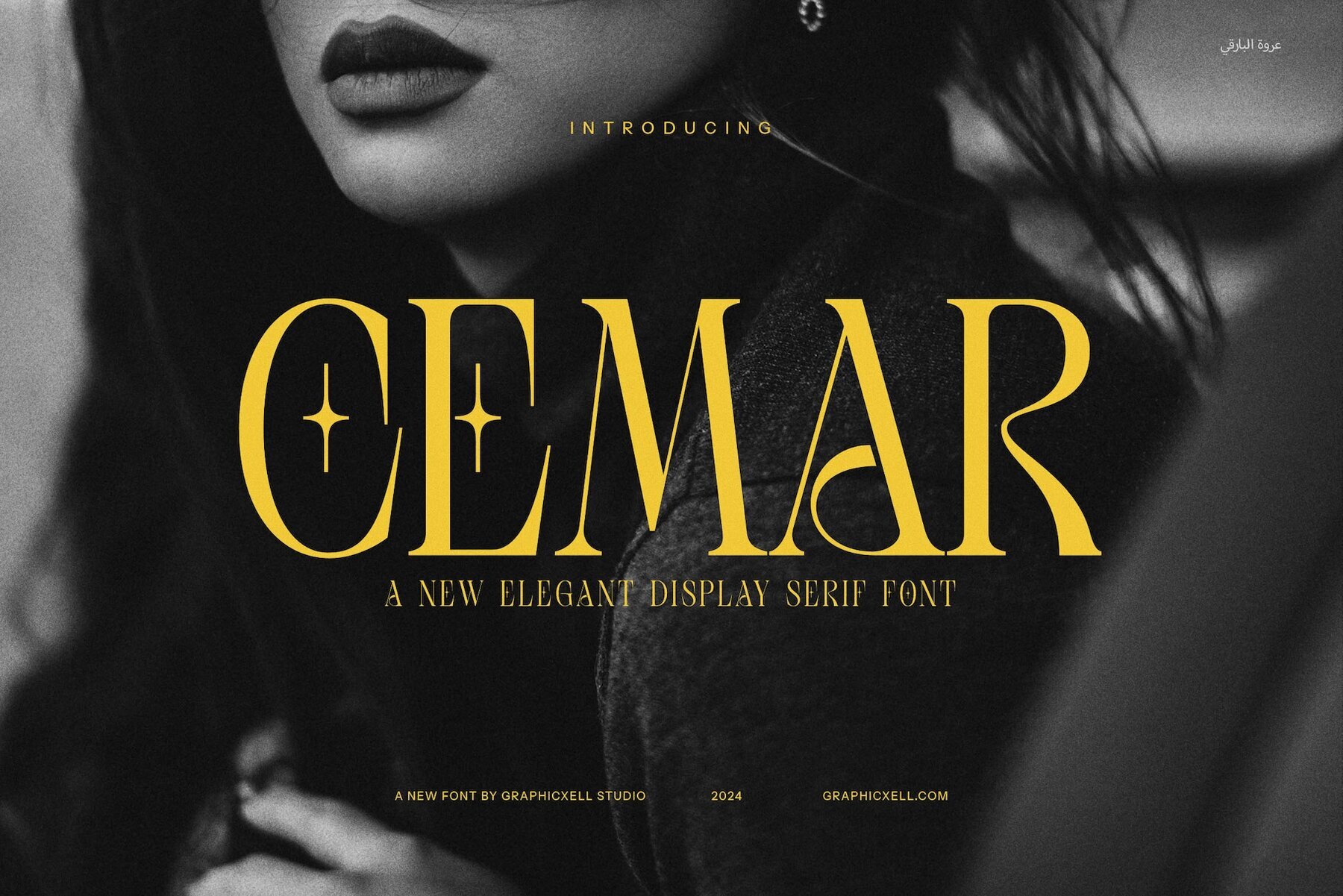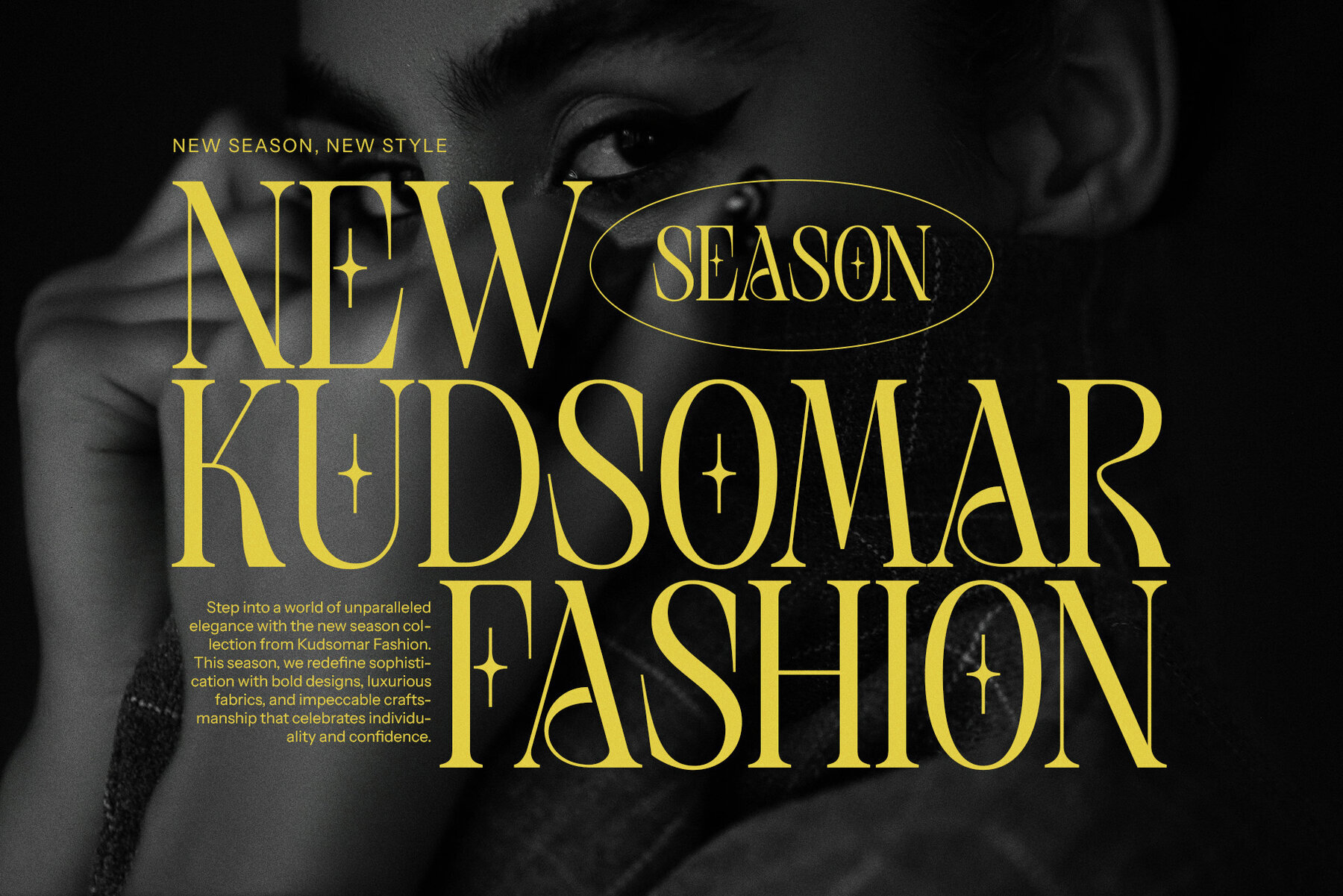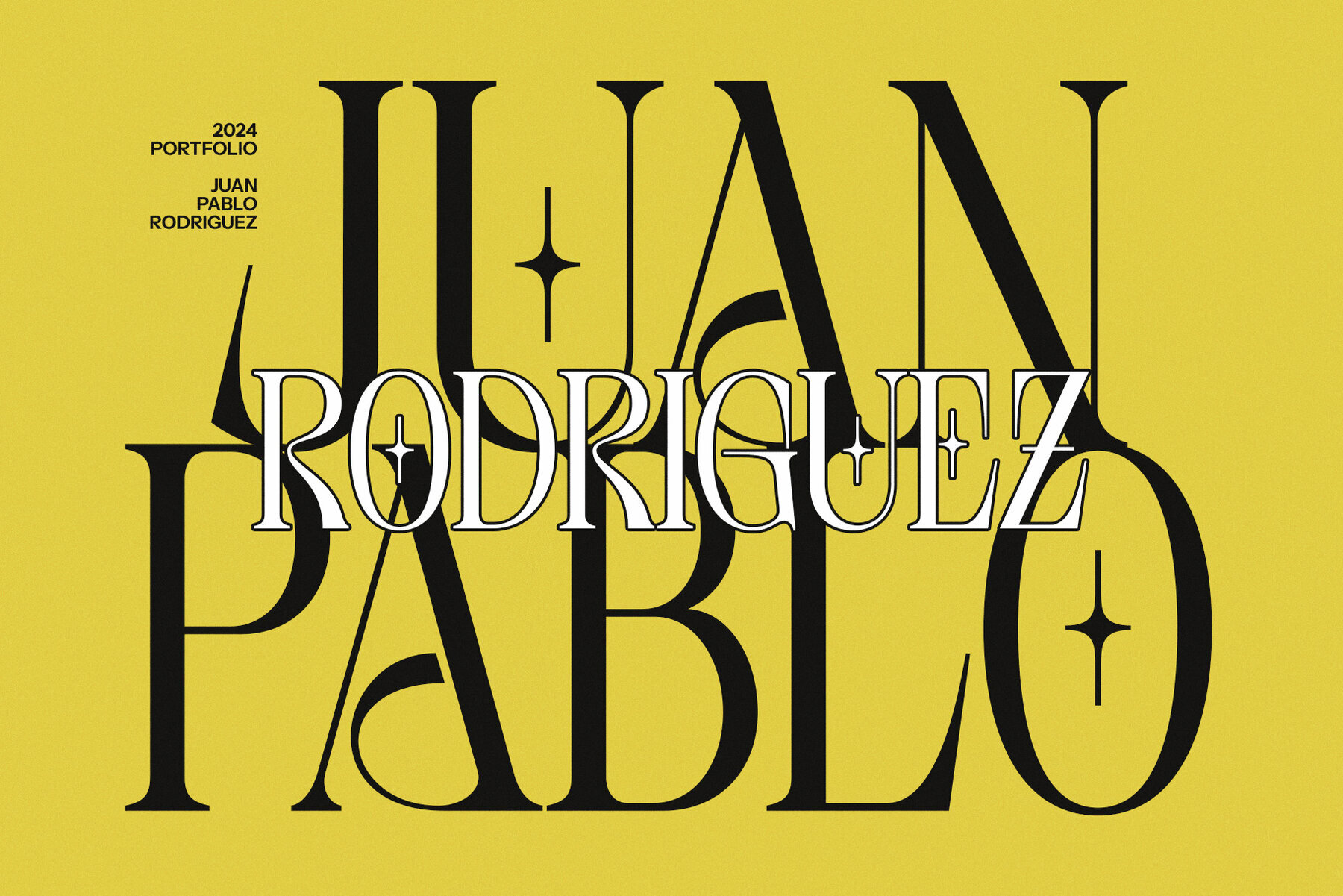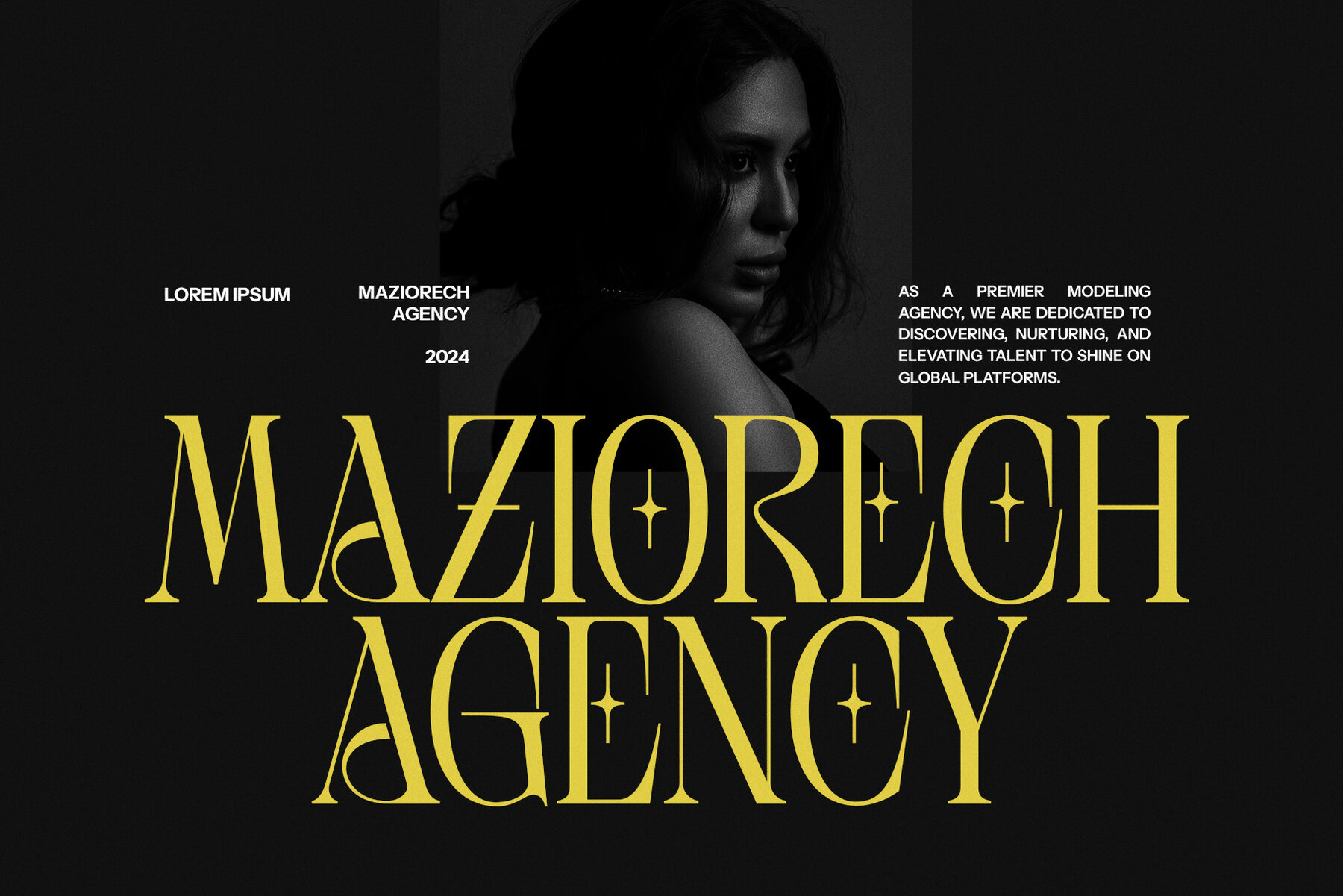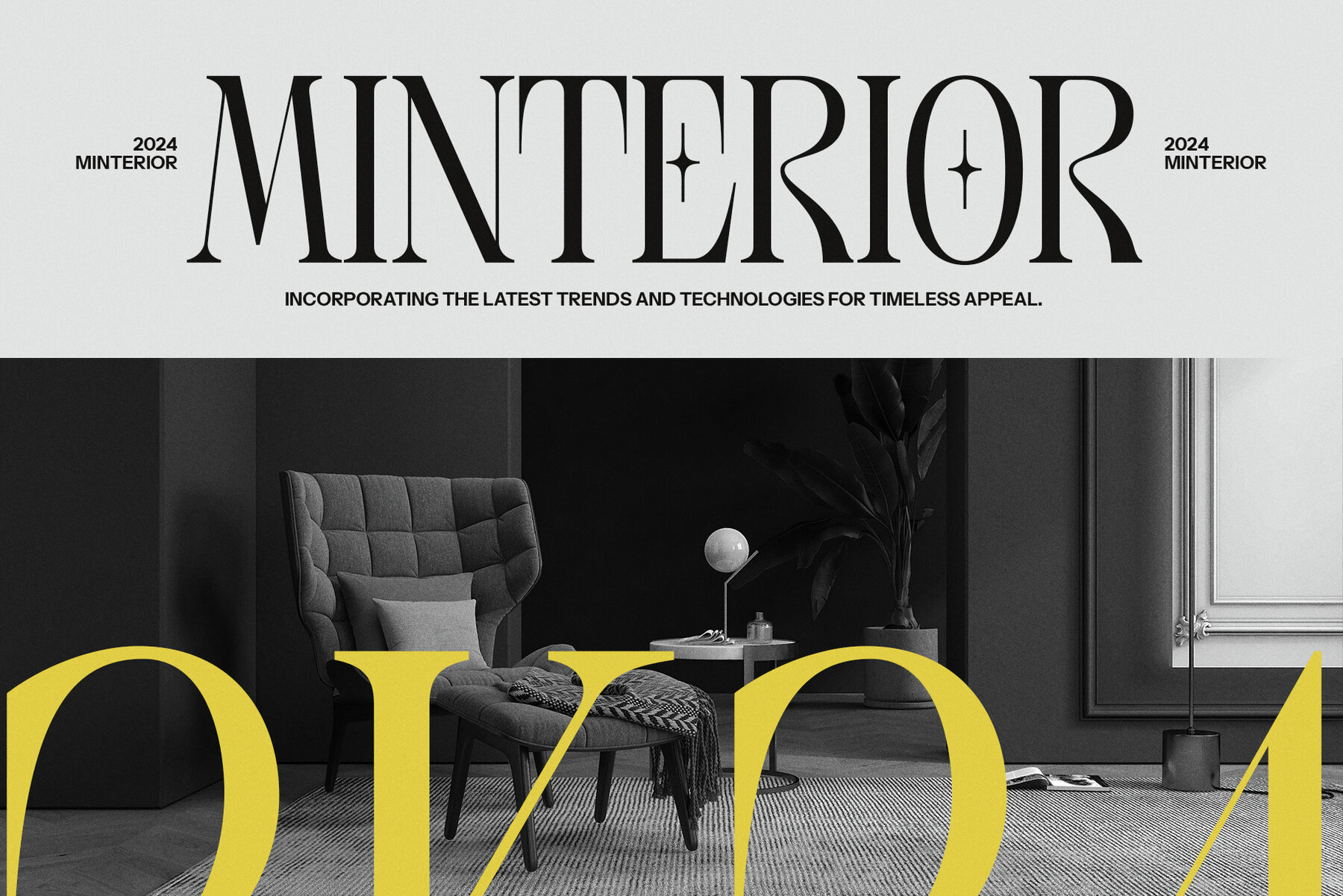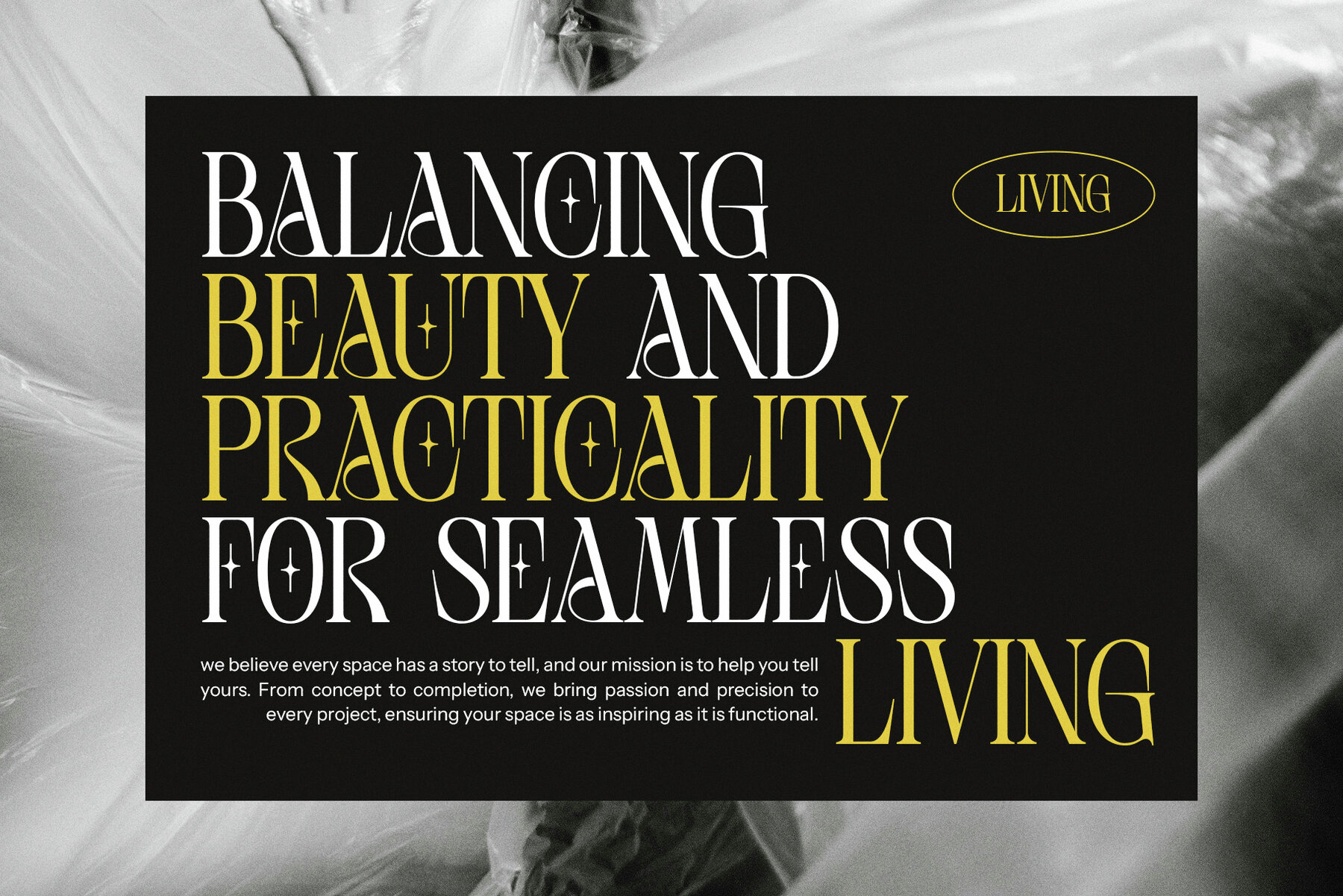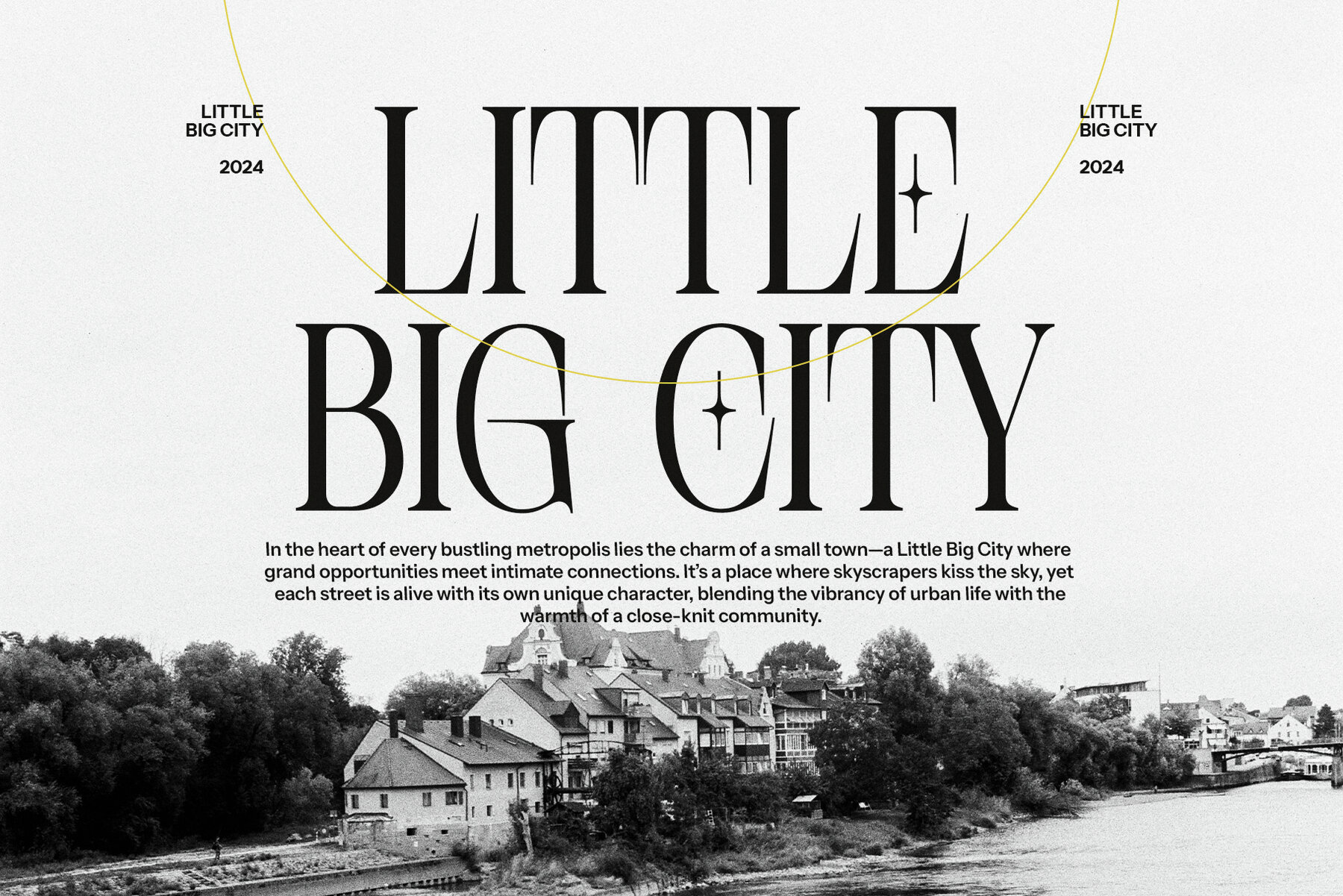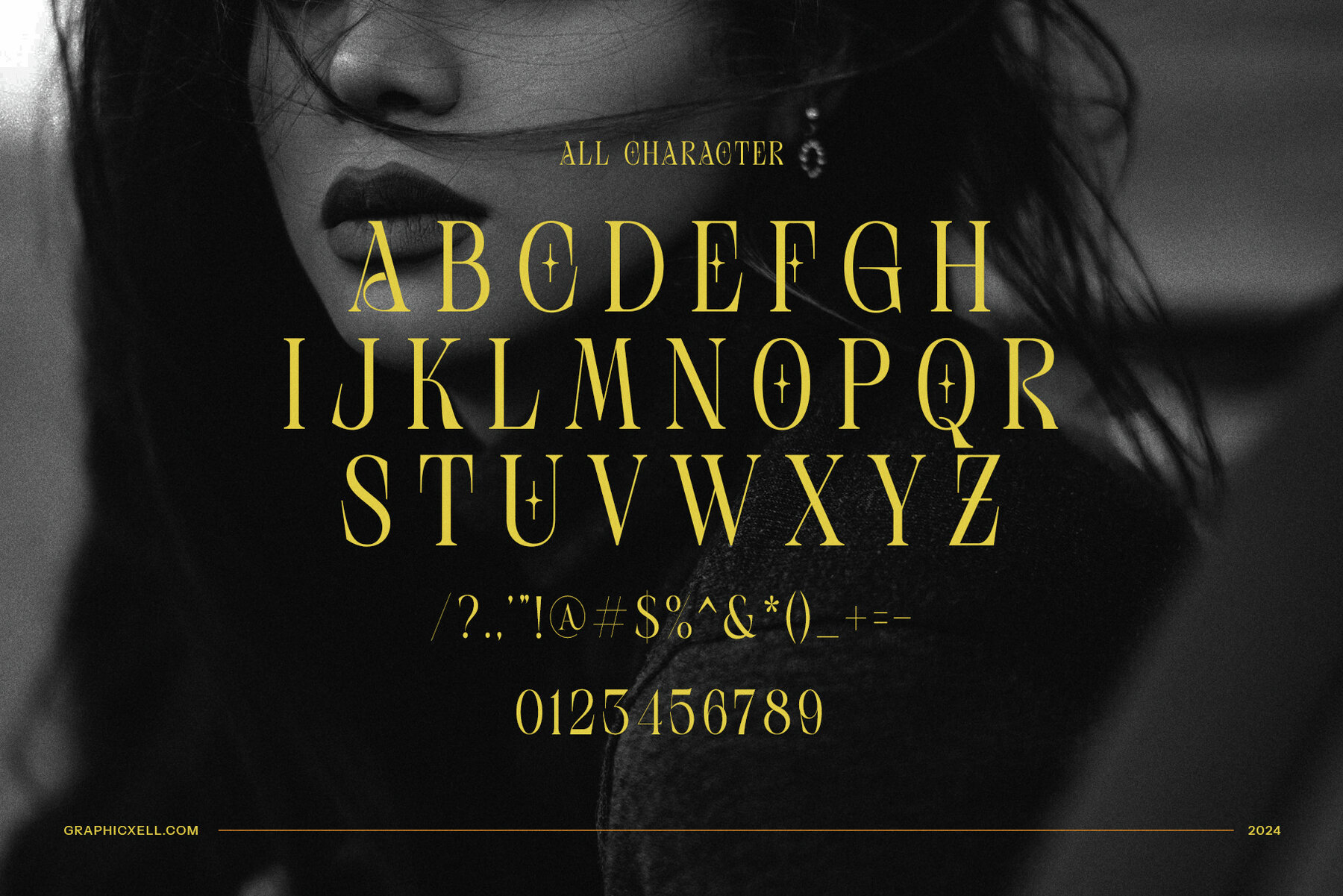
Cemar
Cemar Elegant Serif Font is a distinctive typeface that seamlessly combines vintage charm with modern sophistication. Featuring a unique 4-sided star detail, this font offers a creative twist that adds originality and flair to any design. Its timeless design makes it an ideal choice for an array of projects demanding style and sophistication.
Designed for versatility, Cemar is perfect for logos, branding, and advertisements, injecting a luxurious, vintage feel into every project. The elegant serifs and precise letterforms create a refined appearance, while the unique star element introduces unexpected visual appeal. Cemar is well-suited for high-end brands, boutique businesses, and creative industries, including fashion, food, and lifestyle, offering a nostalgic yet modern aesthetic.
The font's functionality extends to both print and digital media, ensuring clear legibility and strong visual impact at various sizes. Whether developing a sophisticated brand identity, crafting product packaging, or designing promotional materials, Cemar's blend of elegance and originality enhances any creative endeavor.